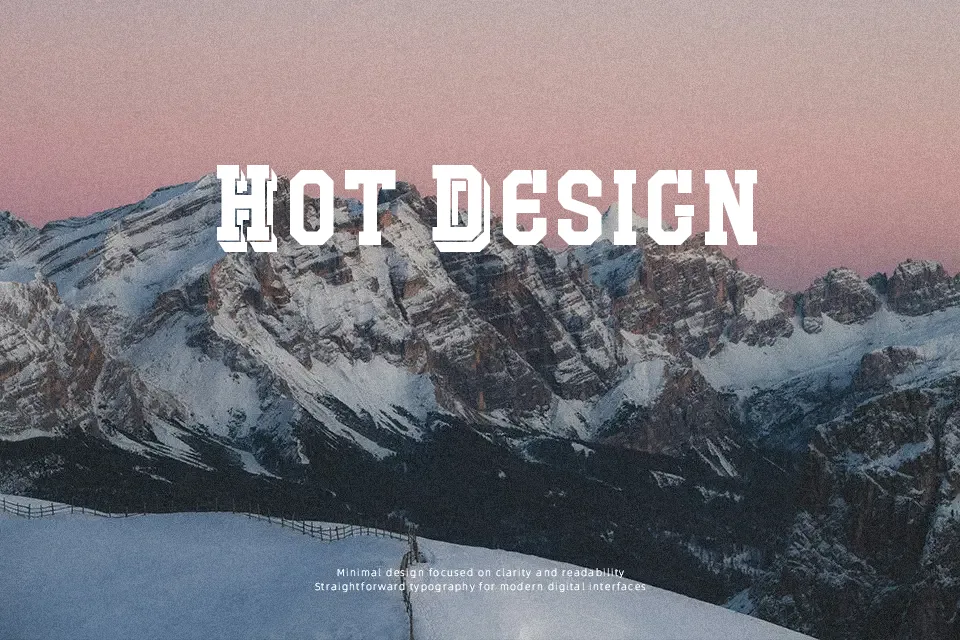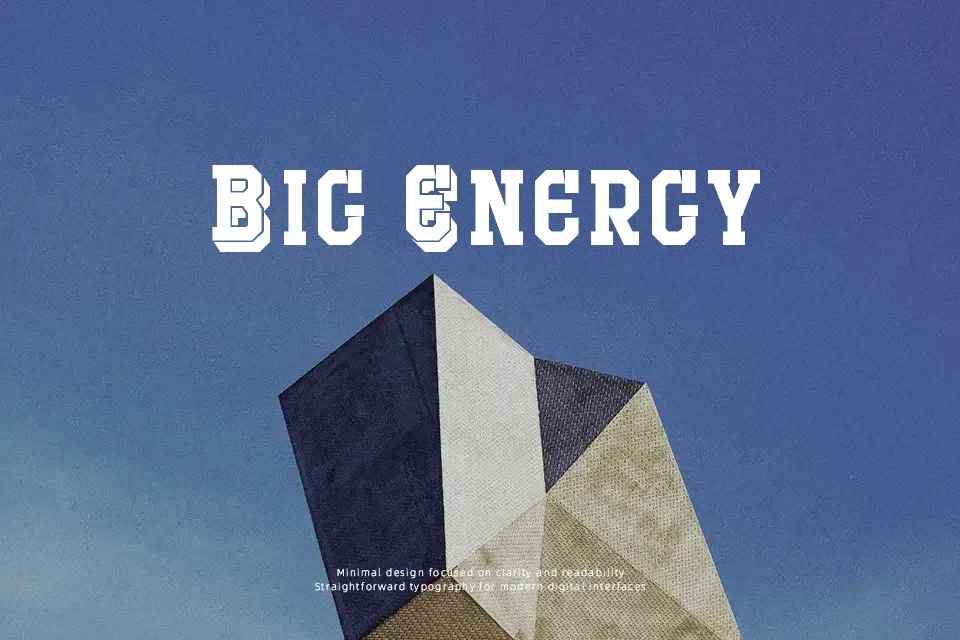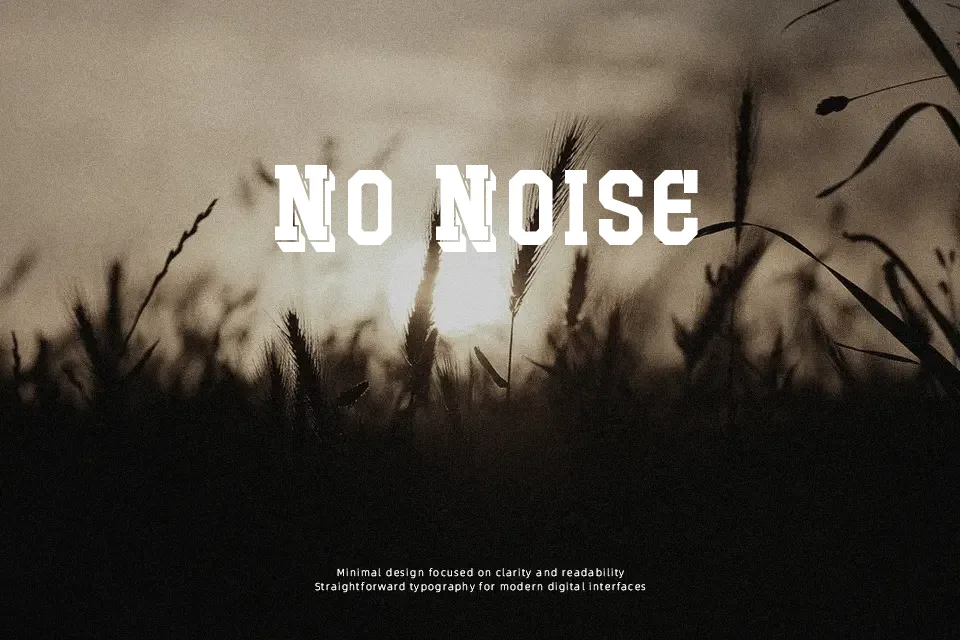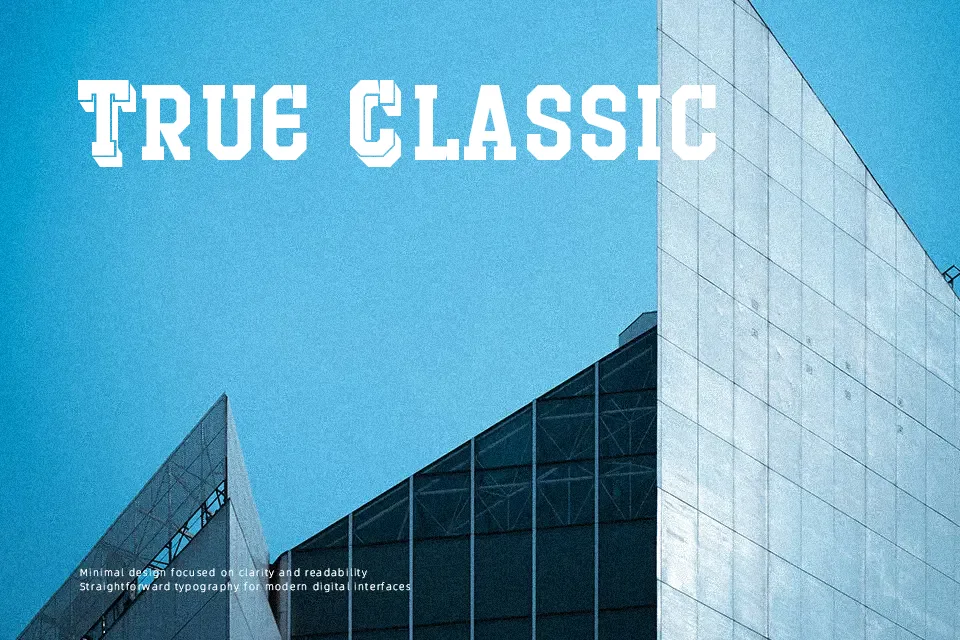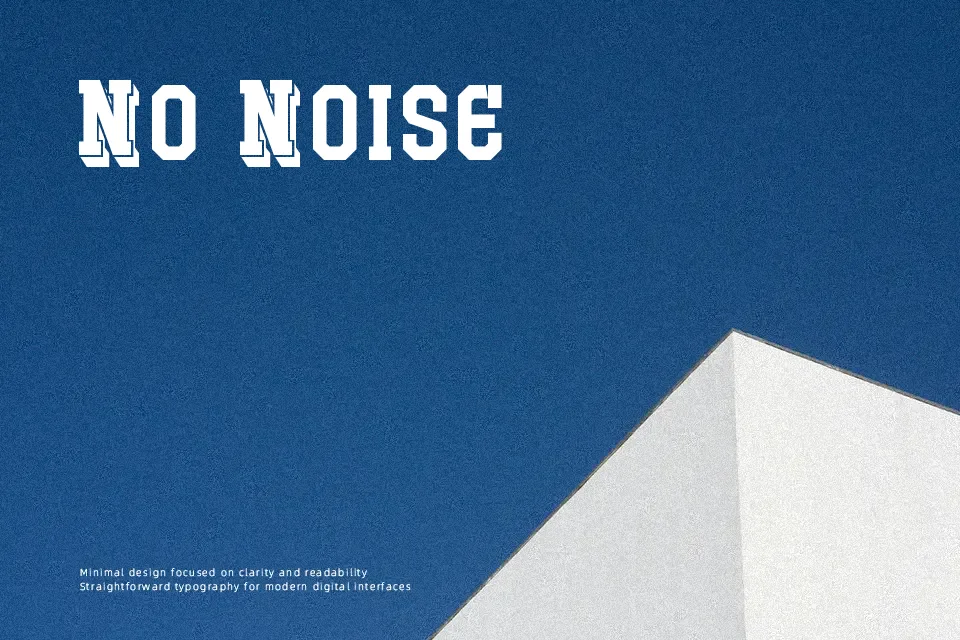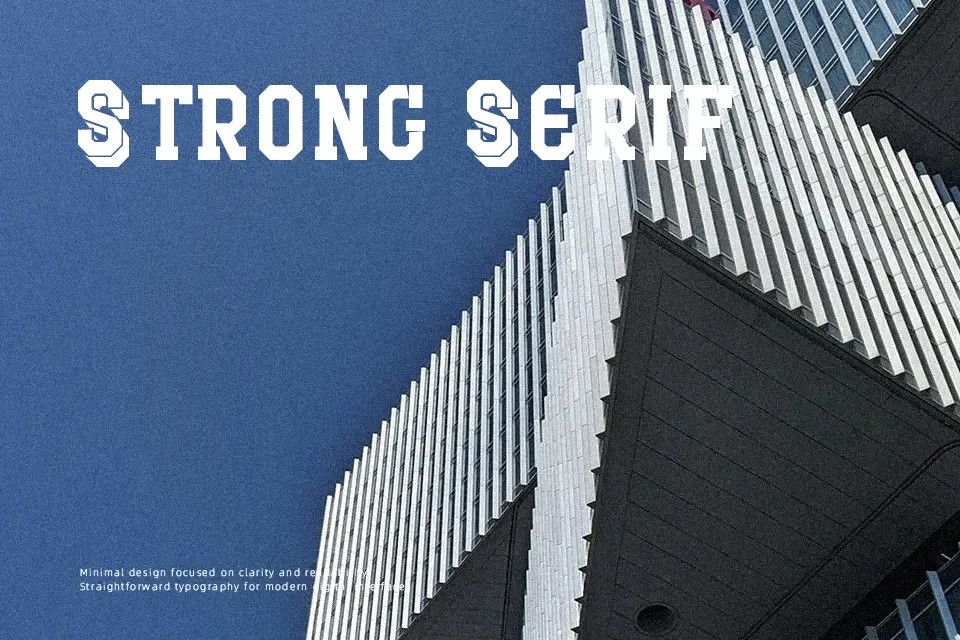
Outfielder Font
Outfielder Font works best as a large-scale display face, using tall condensed capitals, firm geometric strokes, and a mix of solid and outlined character treatments. The tightly controlled proportions create a compact, athletic rhythm that suits short titles, badge-like logos, and poster lettering. Visible numerals follow the same direct, high-impact construction. Its spacing helps words hold together in large headlines, although the narrow forms and decorative outlines become less comfortable in small sizes or extended passages. Use it where a strong uppercase statement is more important than quiet readability.
Best For: sports event posters,team-style logos,athletic apparel graphics,retro game headlines
Perfect for branding, gaming, and logo, with a bold and condensed style.